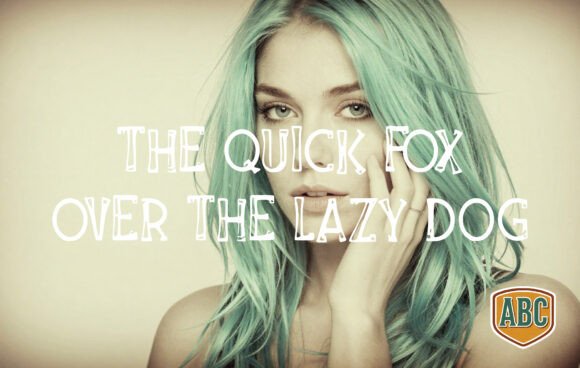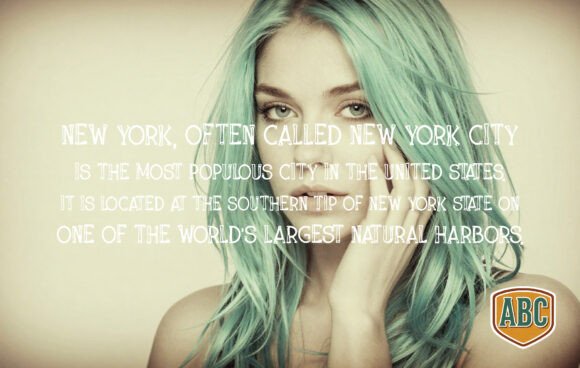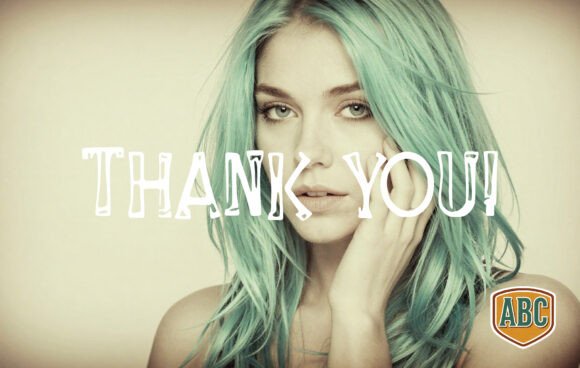
Introduction to Mint Cream Font
The MINT CREAM font is a quirky, hand-drawn display typeface that radiates a fun, “etched” personality with its unique internal detailing.
This MINT CREAM typeface features rough, irregular outlines and decorative inner lines that give it a vintage, DIY craft feel—perfect for indie zines, creative posters, and experimental branding The tall, whimsical structure of the MINT CREAM font ensures it grabs attention while maintaining an approachable, artsy vibe.
Key Features of Mint Cream Font